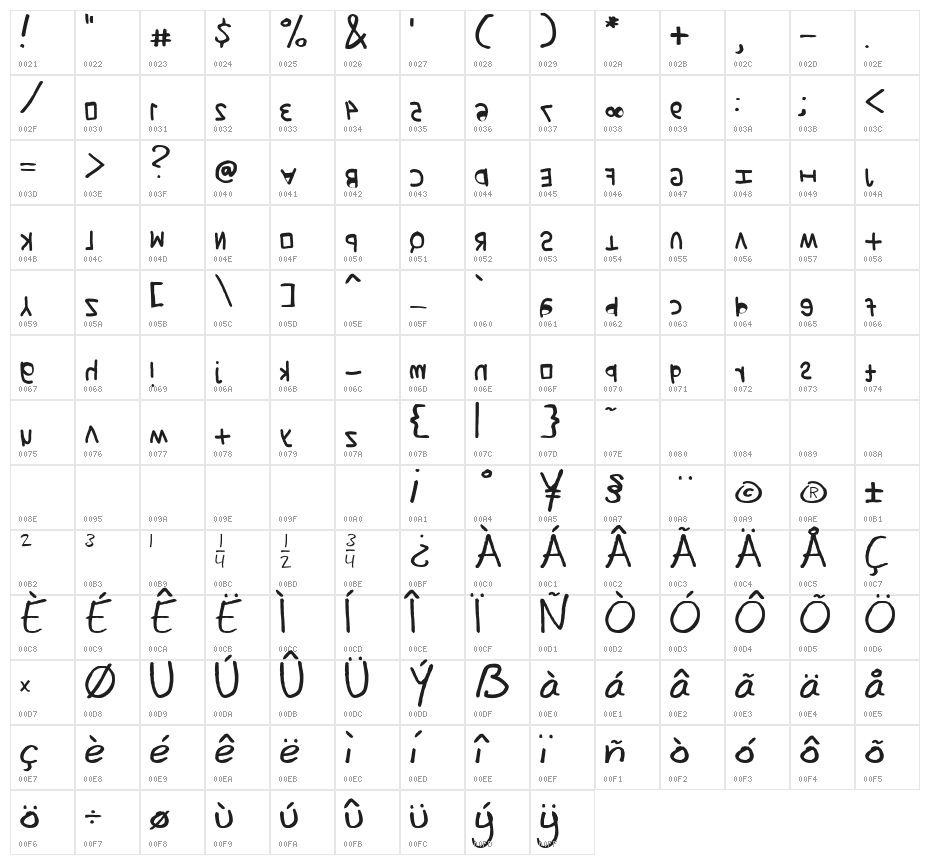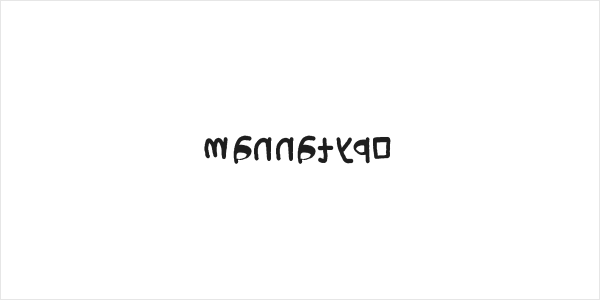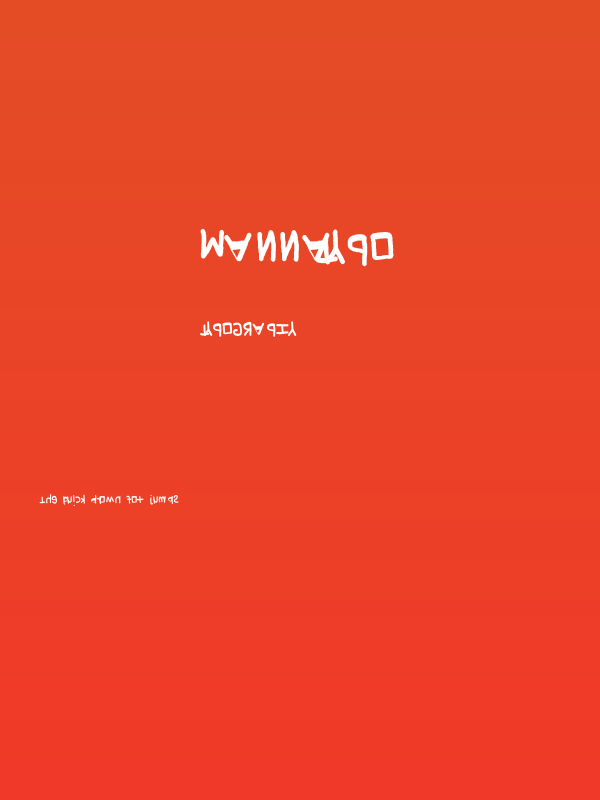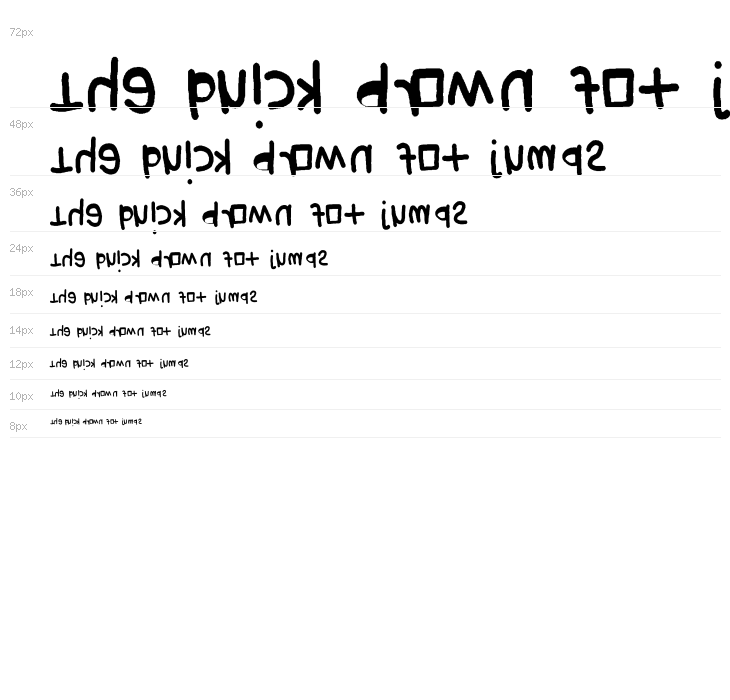
mannatypo Font
mannatypo Description
This font features a playful and casual handwritten style, characterized by its uneven strokes and slightly irregular letterforms. The letters have a whimsical appearance, with a natural flow that mimics the look of writing with a marker or brush. The overall impression is informal and friendly, making it suitable for projects that require a personal touch. The font includes a full set of uppercase and lowercase letters, numbers, and a variety of special characters, ensuring versatility in use.
| Proposed Projects | Ideal for greeting cards, children's books, casual invitations, and creative branding projects. |